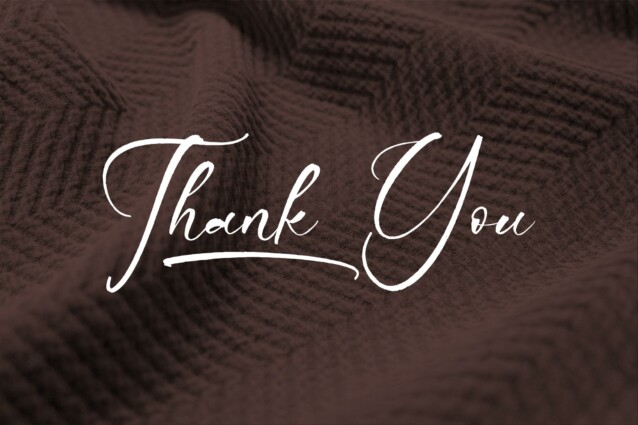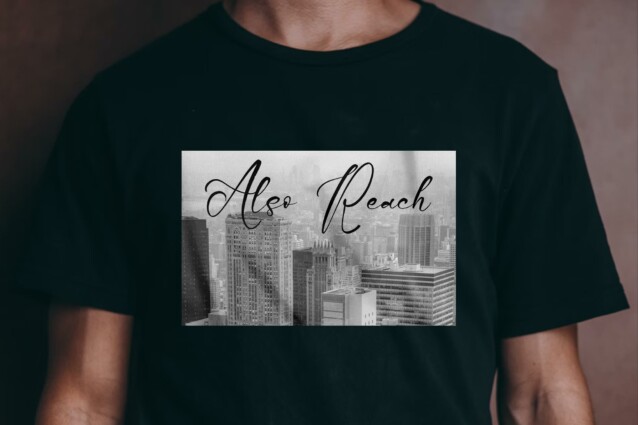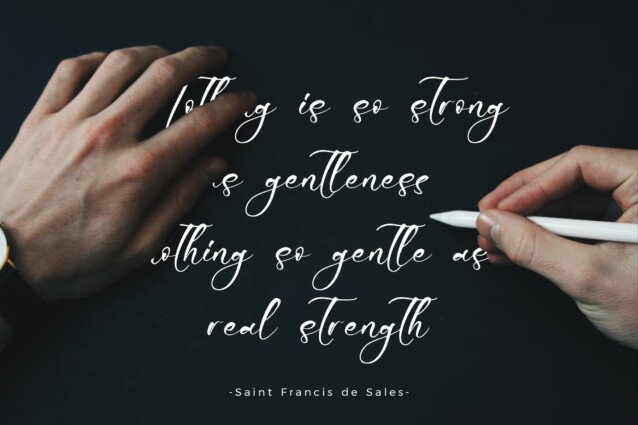
Arllontesha Rosttecy Font
Arllontesha Rosttecy Font is a Beauty Handwritten Font, suitable for any projects such as: logos, branding projects, homeware designs, product packaging, mugs, quotes, posters, shopping bags, t-shirts, book covers, name card, invitation cards, greeting cards, label, photography, watermark, special events, and all your other lovely projects that need a beautiful script taste.